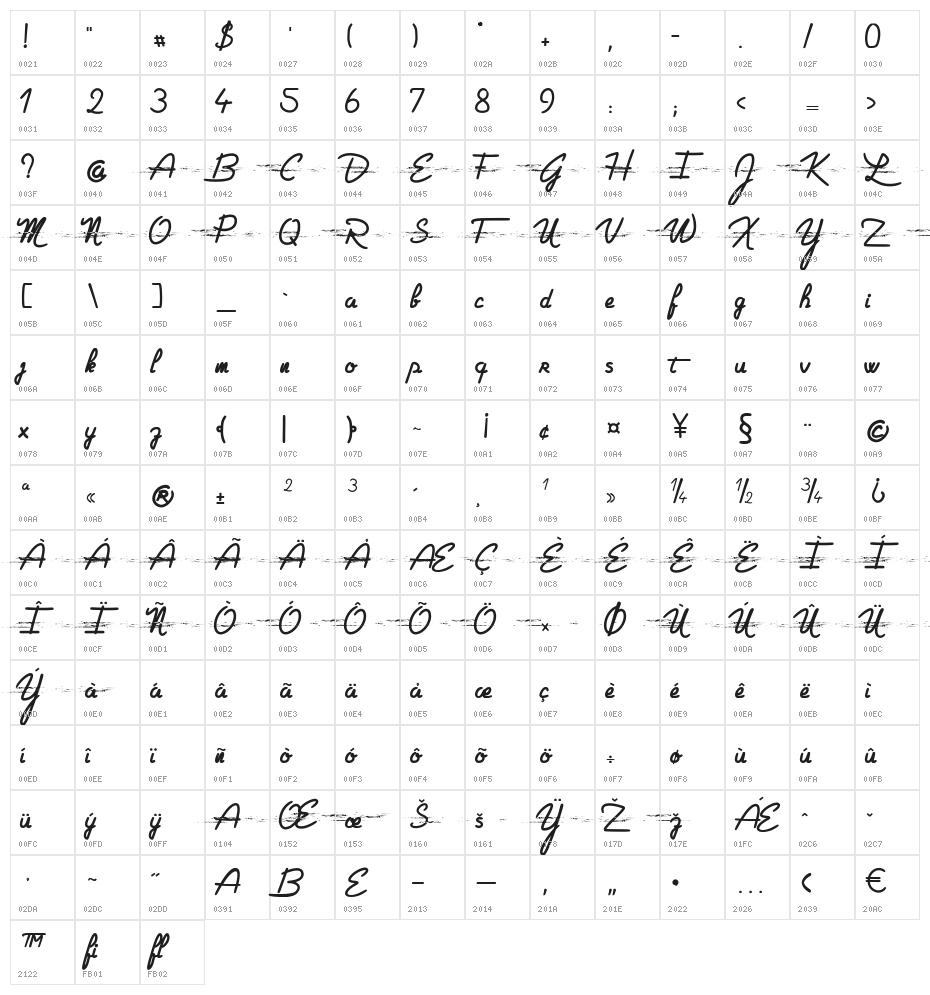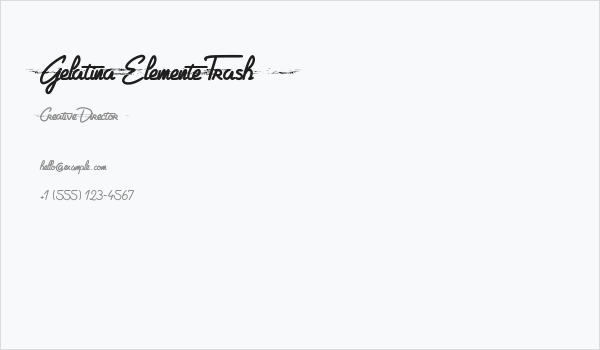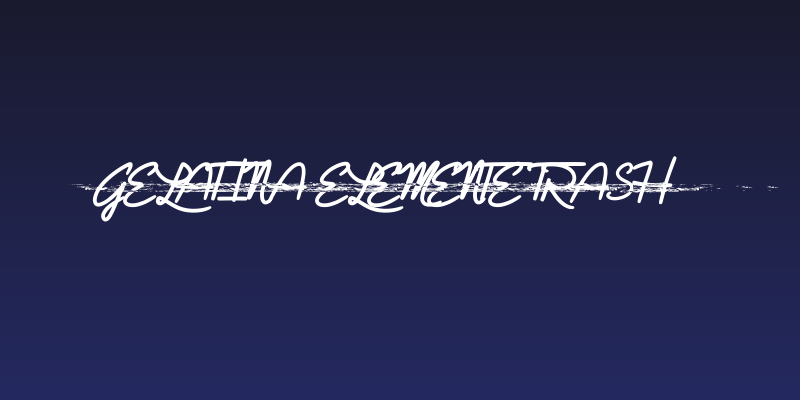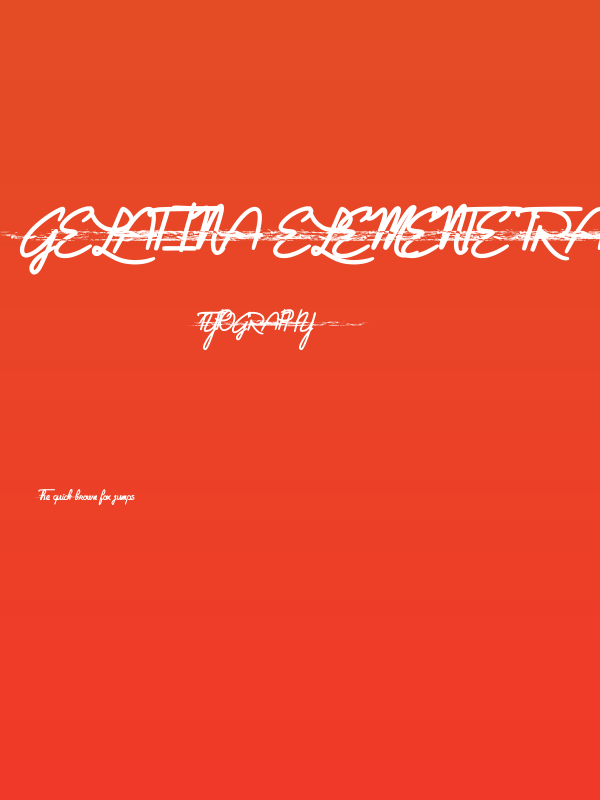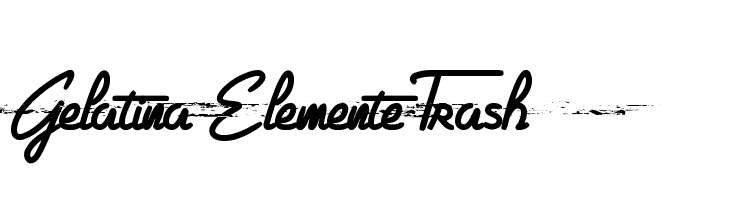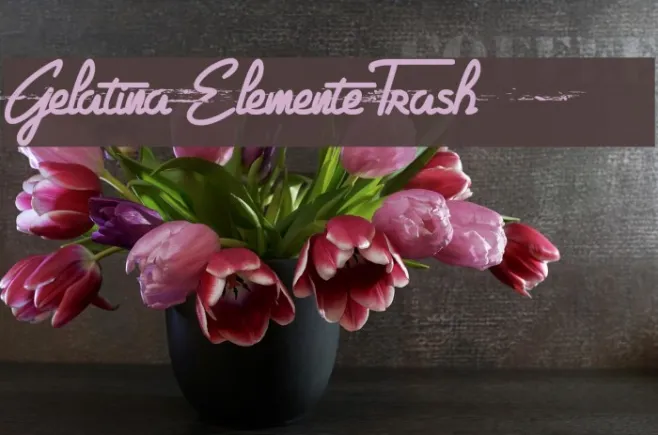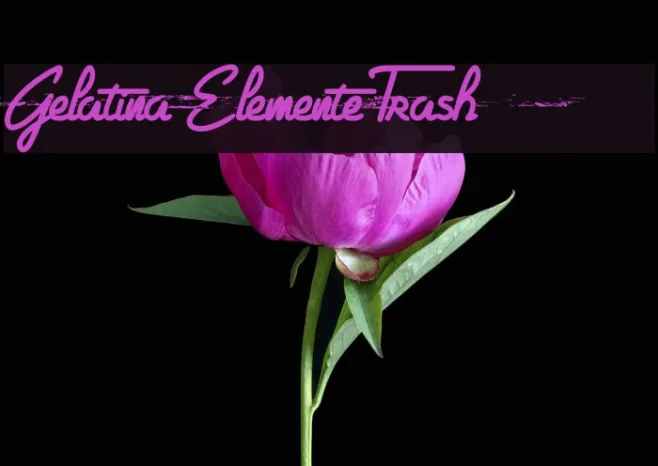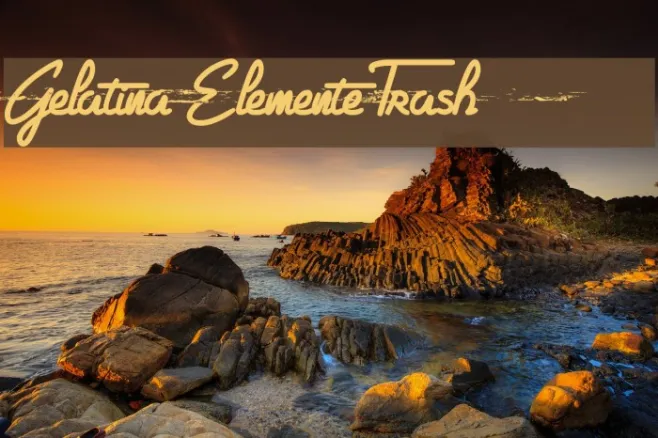
Gelatina Elemente Trash Font
Gelatina Elemente Trash Description
This font features a dynamic and expressive style with a handwritten appearance. The uppercase letters are bold and slightly slanted, giving a sense of movement and energy. The lowercase letters maintain a consistent flow, enhancing the handwritten feel. Numbers are clear and legible, with a slight tilt that matches the overall style. Special characters are creatively designed, adding to the font's unique personality. The strokes are thick and consistent, providing a strong presence on the page. This font is ideal for projects that require a personal touch or a bold statement.
| Use Case | Headlines, Logos, Creative projects |
| Proposed Projects | Great for posters, branding, invitations, and creative projects that need a personal touch. |